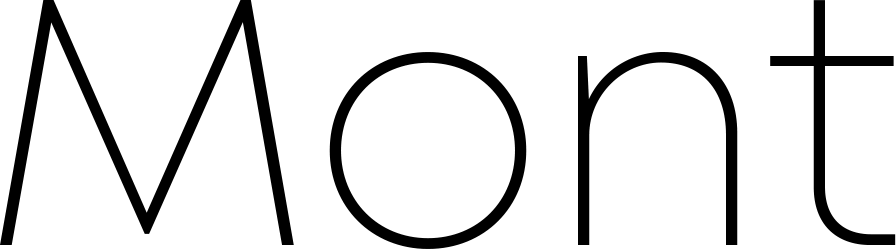
Mont Font
Mont font prepares you for exciting 90s poster designs. Because this font has two different types, this means that you can use two different styles in your artwork. For example, business card design partly requires a bol…
Mont font prepares you for exciting 90s poster designs. Because this font has two different types, this means that you can use two different styles in your artwork.
For example, business card design partly requires a bold font and partly requires a thin font. This attractive font offers you everything a designer needs to design a flyer, music cover, and logo of stylish brands.